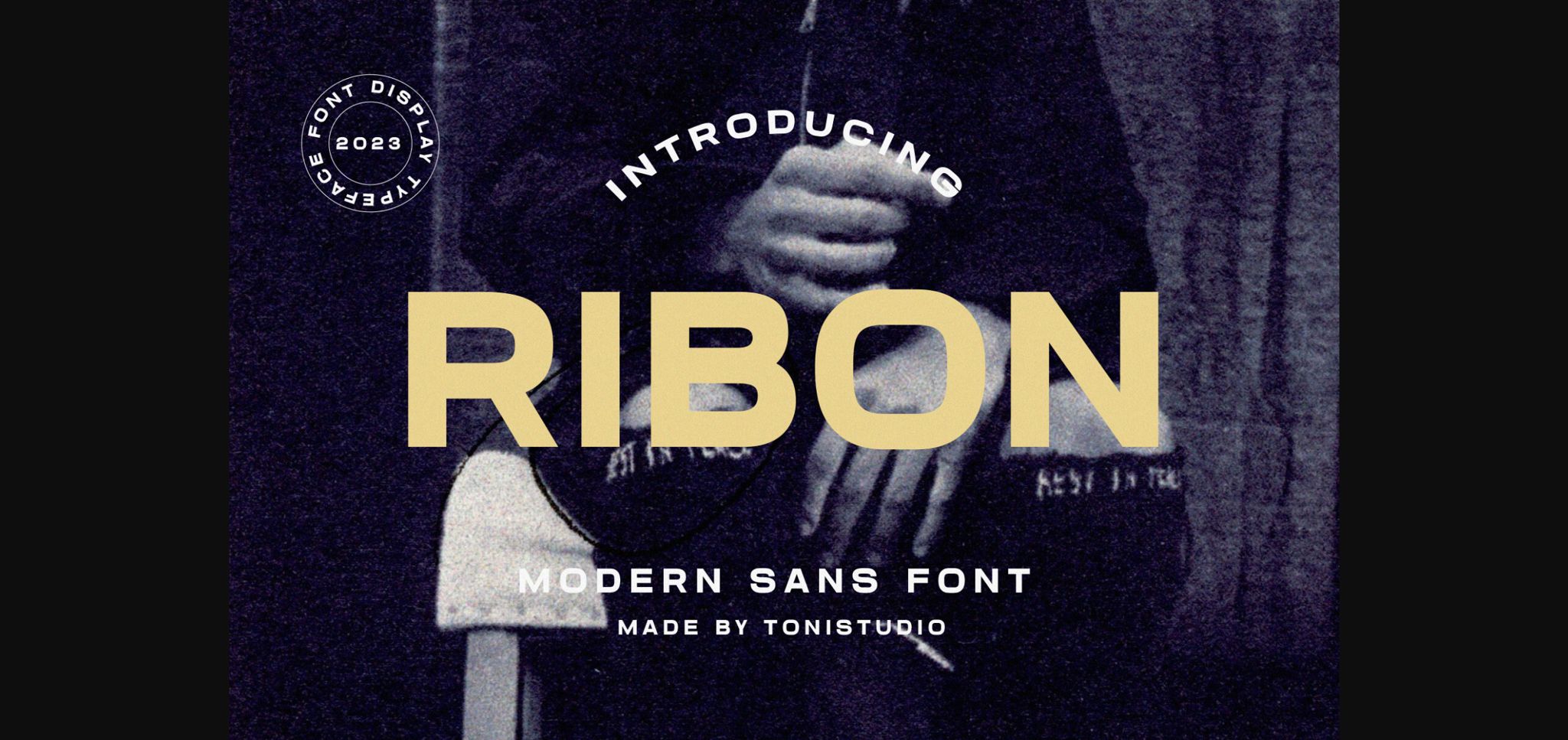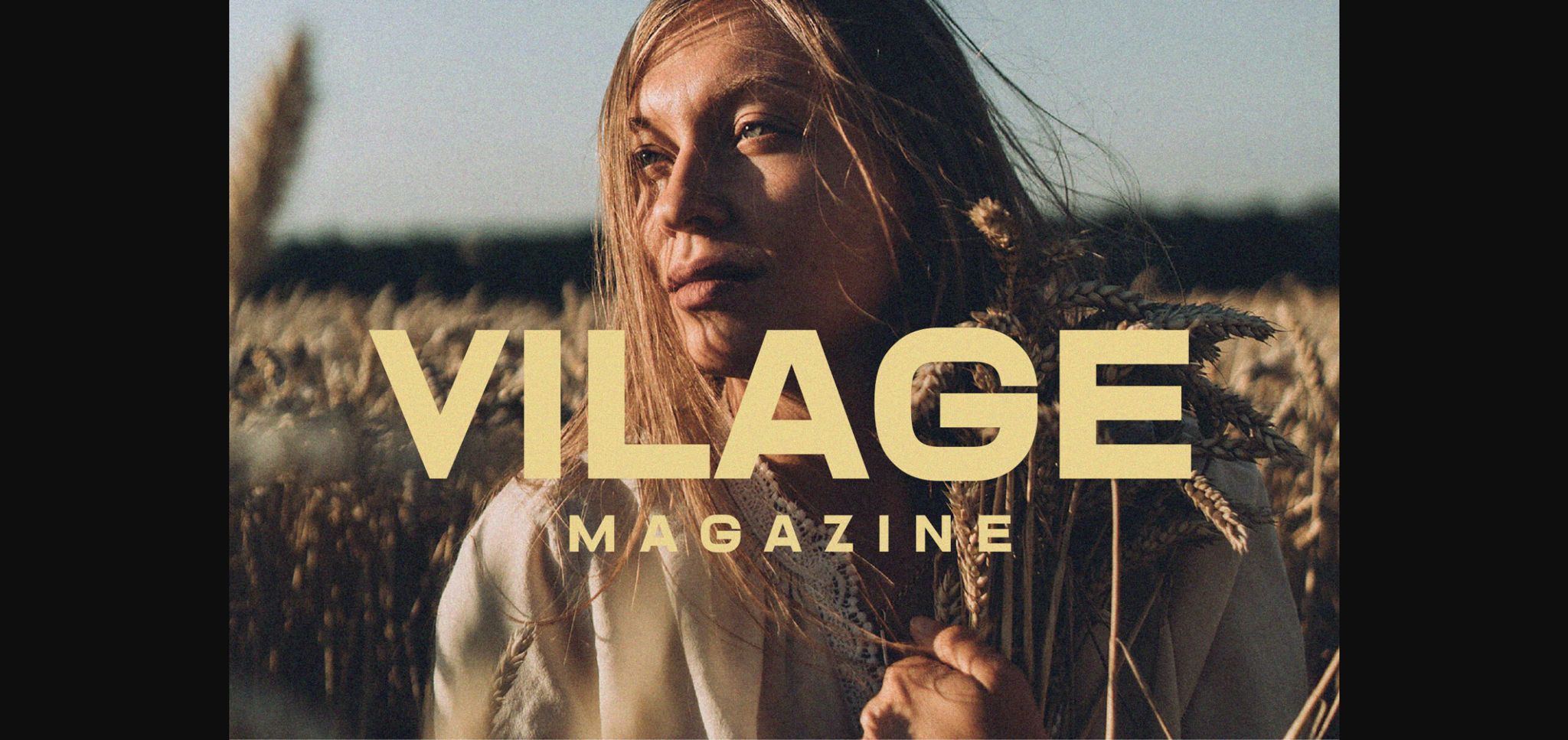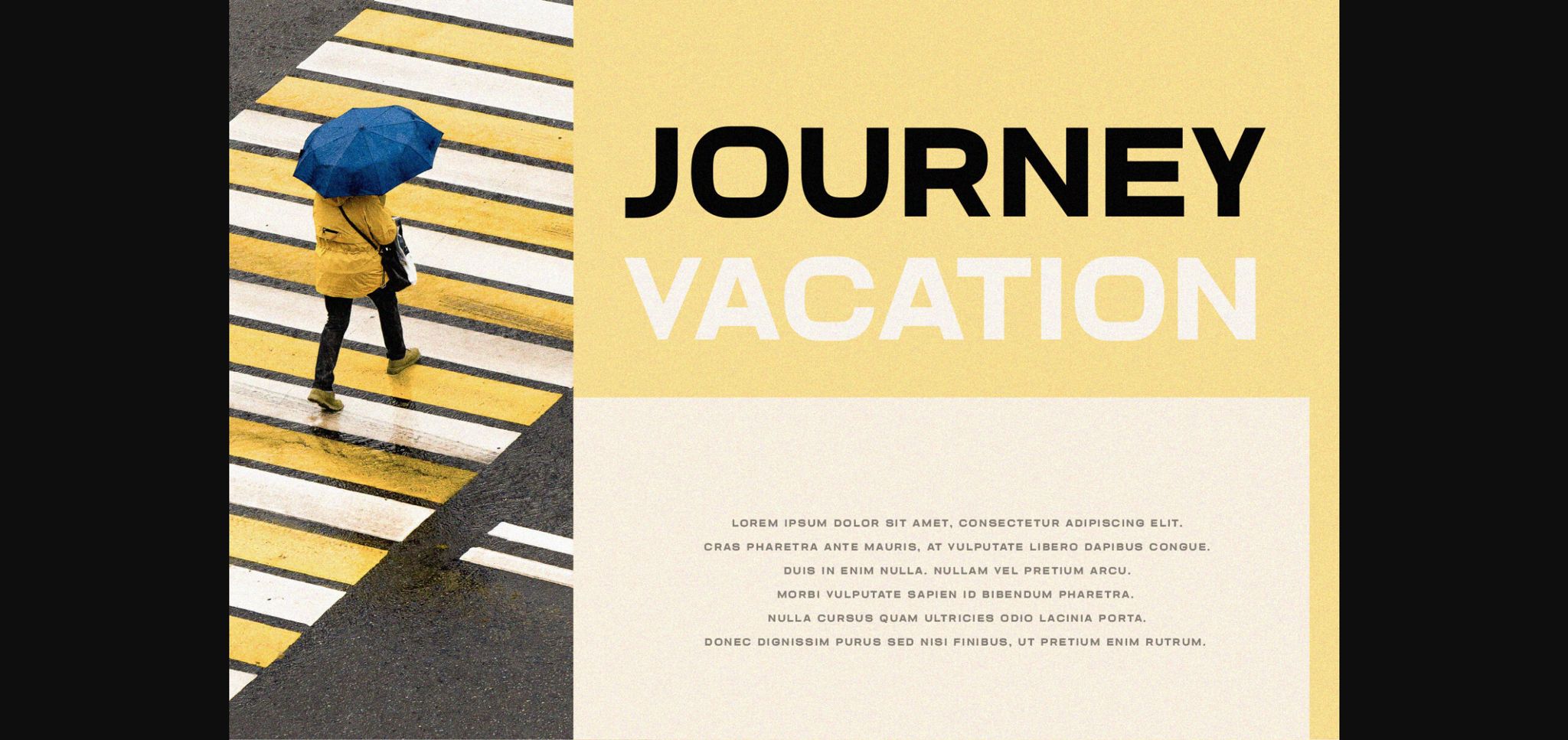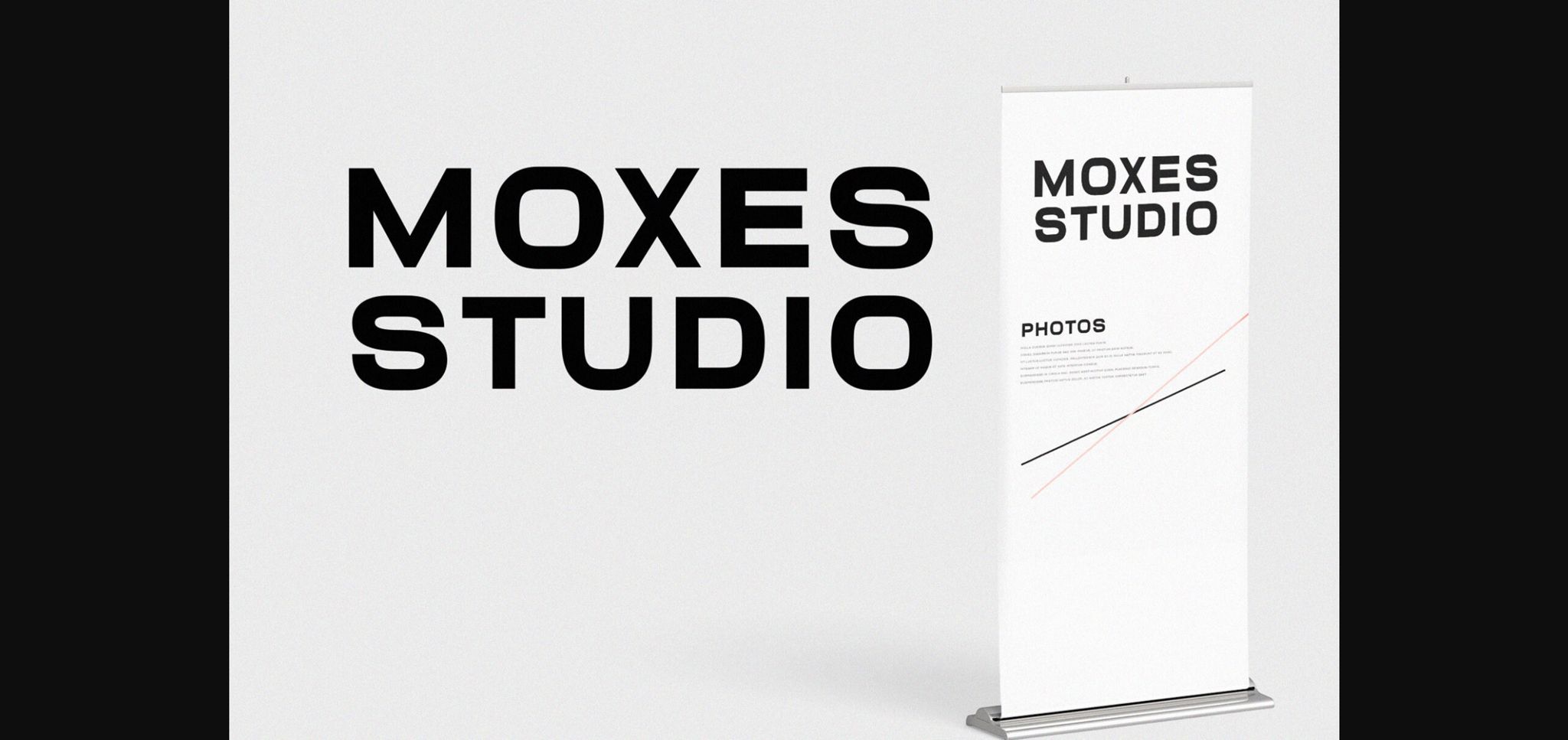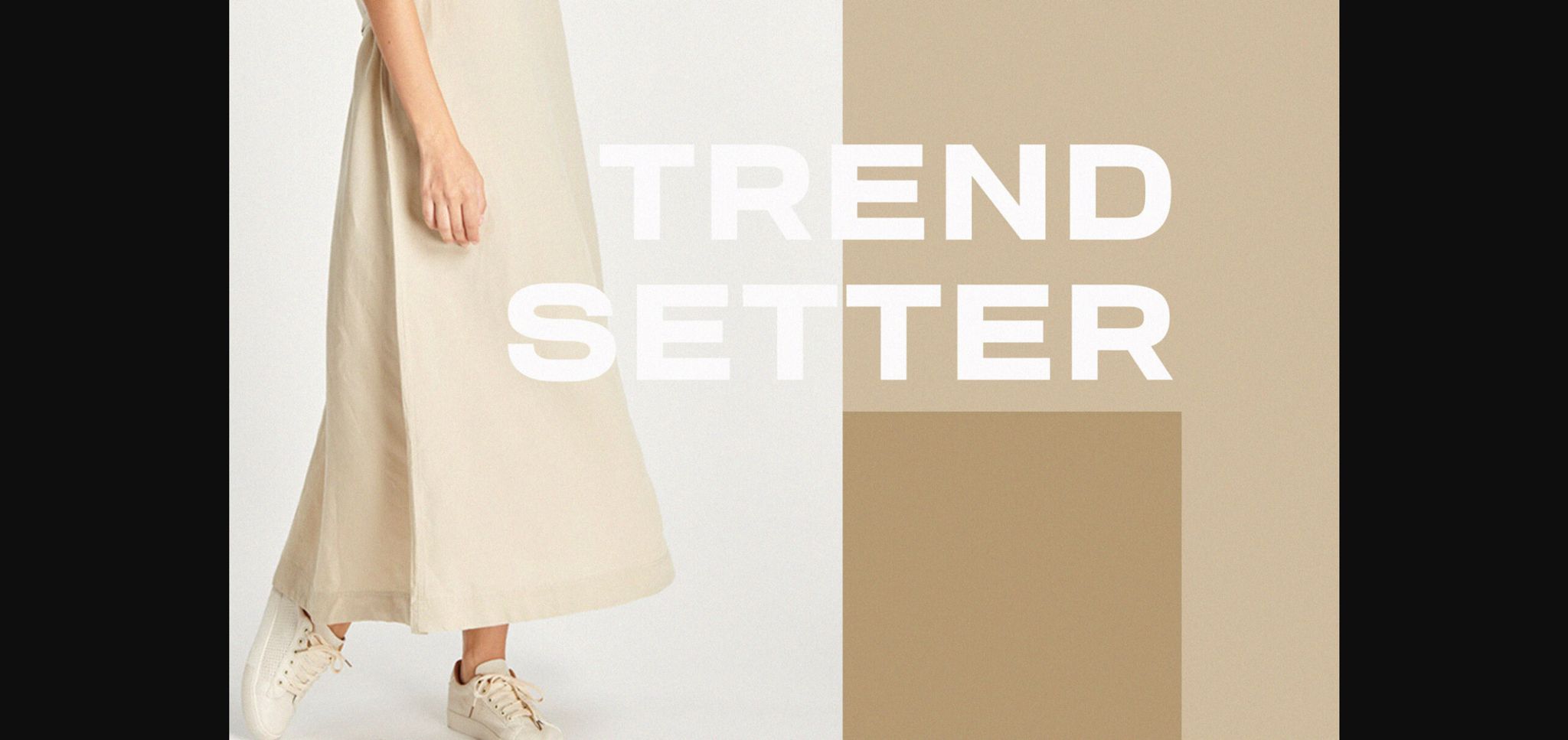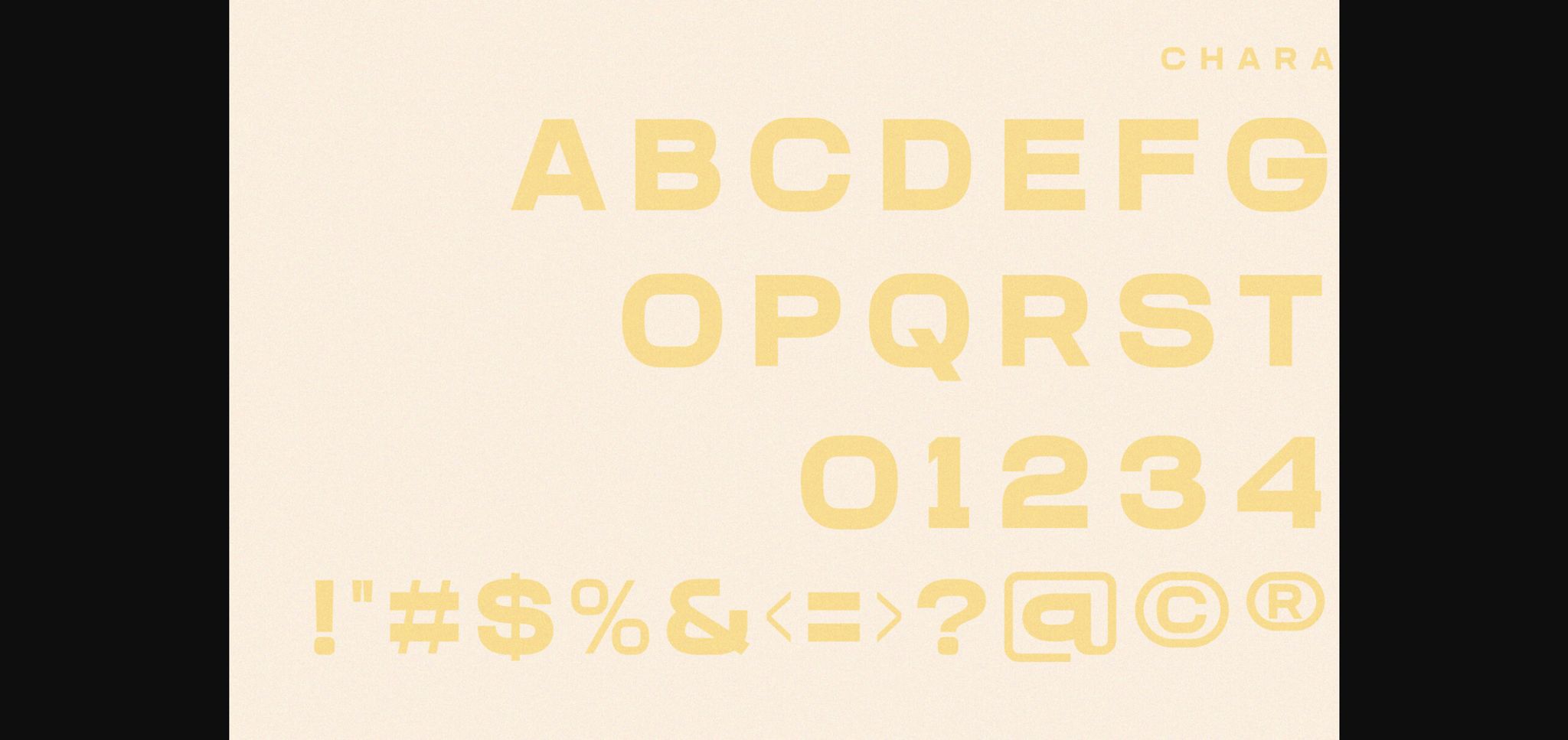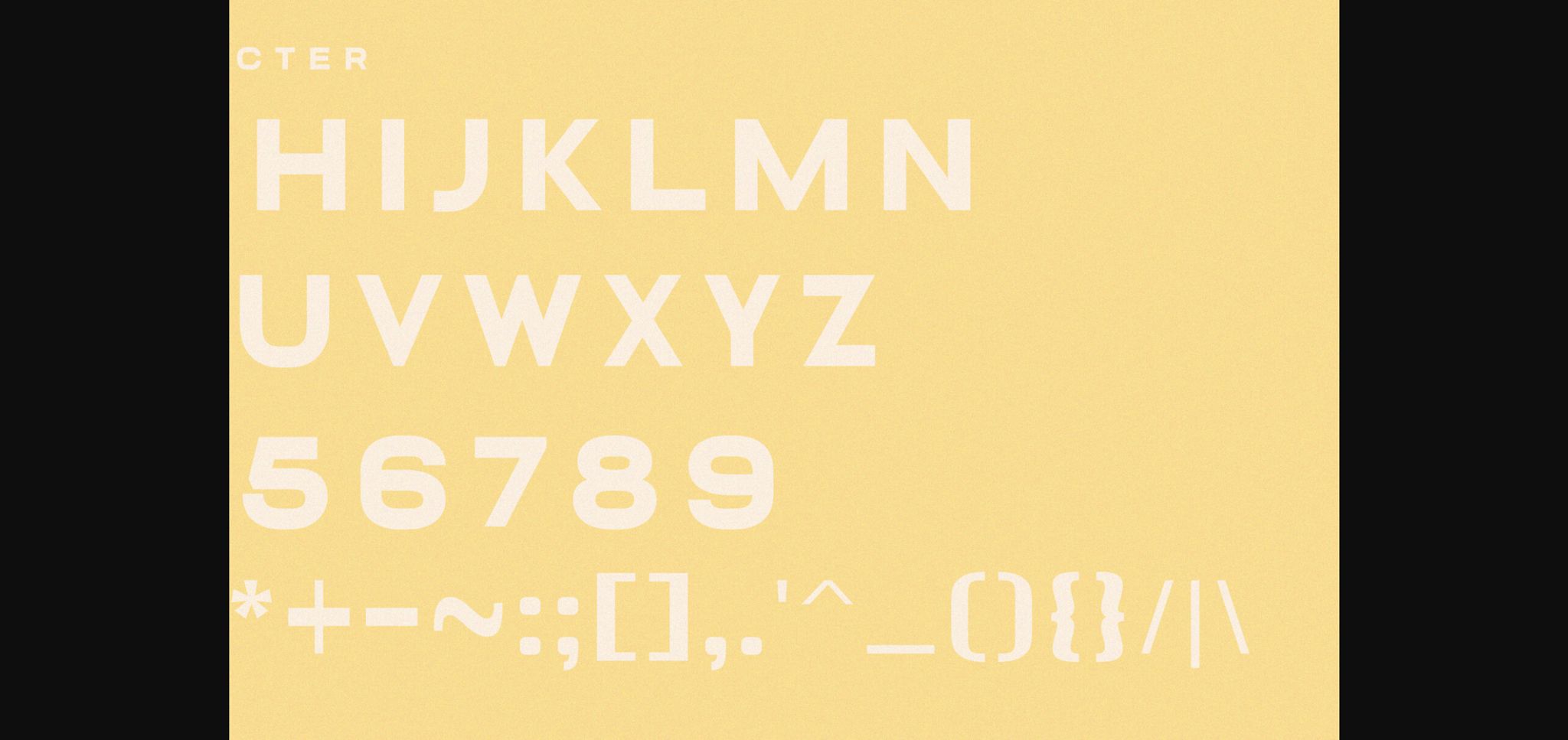
About Ribon Font
Presenting the modern sans serif font, Ribon inspired by famous minimalist logos suitable for template designs, brochures, videos, advertising branding, logos, invitations, layout designs, elegant crafts, beauty designs and more.